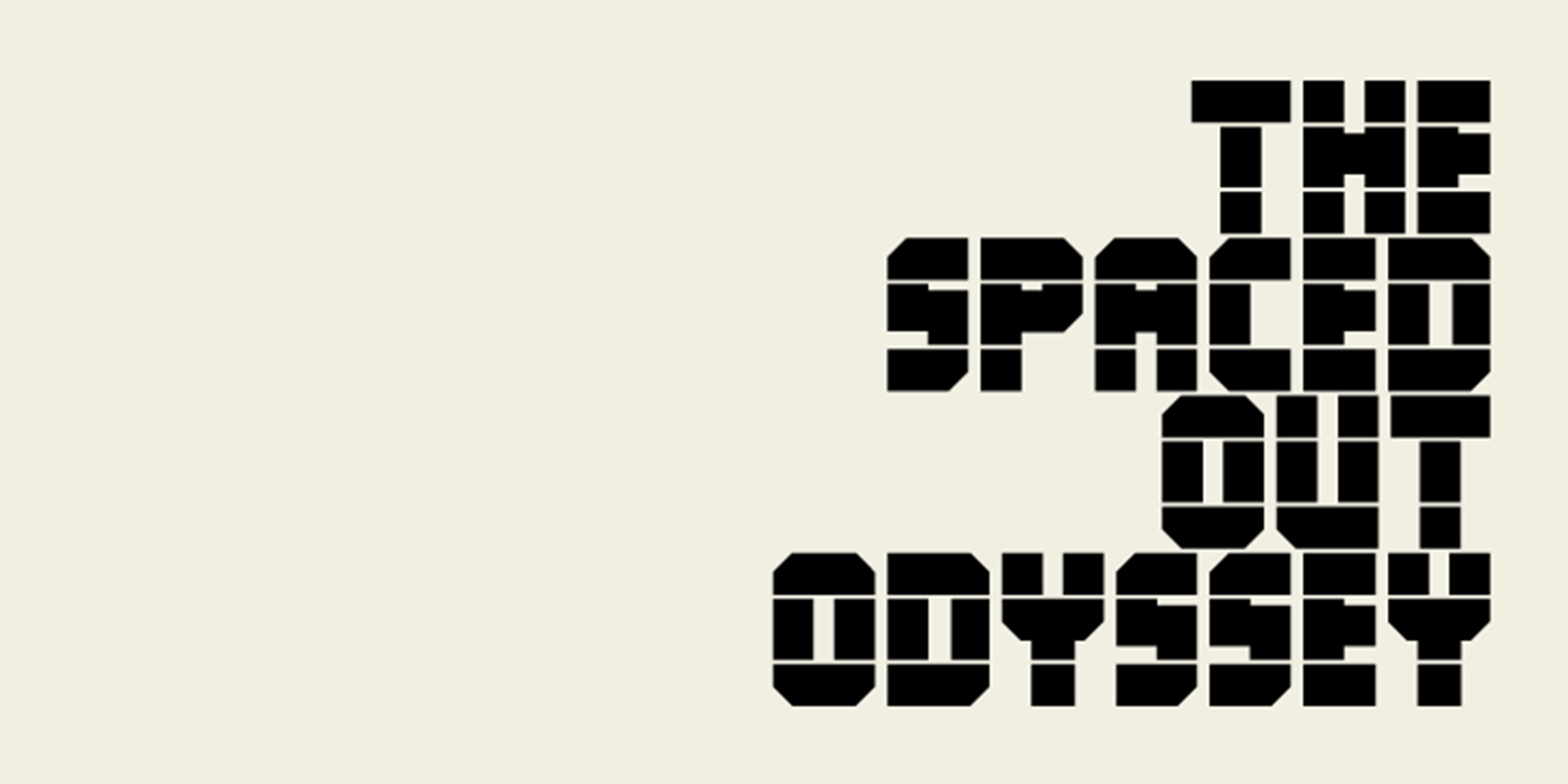
The QueueBrick Font is an excellent choice for designs that aim for a structured, modular, and often playful or tech-inspired aesthetic. Imagine it forming the building blocks of a modern gaming logo, adding a pixelated charm to digital art, or bringing a geometric precision to infographics. It's also perfectly suited for app interfaces, educational materials focused on construction or puzzles, retro-themed designs, and any project where you want to convey a sense of order, ingenuity, and a unique, block-based visual style. Its distinctive, often square or blocky forms make it ideal for conveying clarity and a systematic approach.
What makes the QueueBrick Font so exciting is its inherent ability to evoke the feeling of construction and digital assembly. It often features letterforms built from individual, discernible units, giving it a unique visual texture and a strong graphic presence. This font has a precise and engaging personality that can instantly elevate your design, making it feel both modern and intellectually stimulating. It’s designed to capture attention with its innovative structure, ensuring your message is not just seen, but appreciated for its clever design.
The QueueBrick Font family typically might focus on a few key weights to maintain its distinctive block-based character, possibly including stylistic alternates or unique ligatures that enhance its modular appeal. While it might not always have an extensive range of weights, its strength lies in its unique visual style. These variations empower designers to create a truly structured and memorable display, ensuring the QueueBrick Font Free Download can adapt to a wide array of projects while maintaining its signature, brick-by-brick charm.